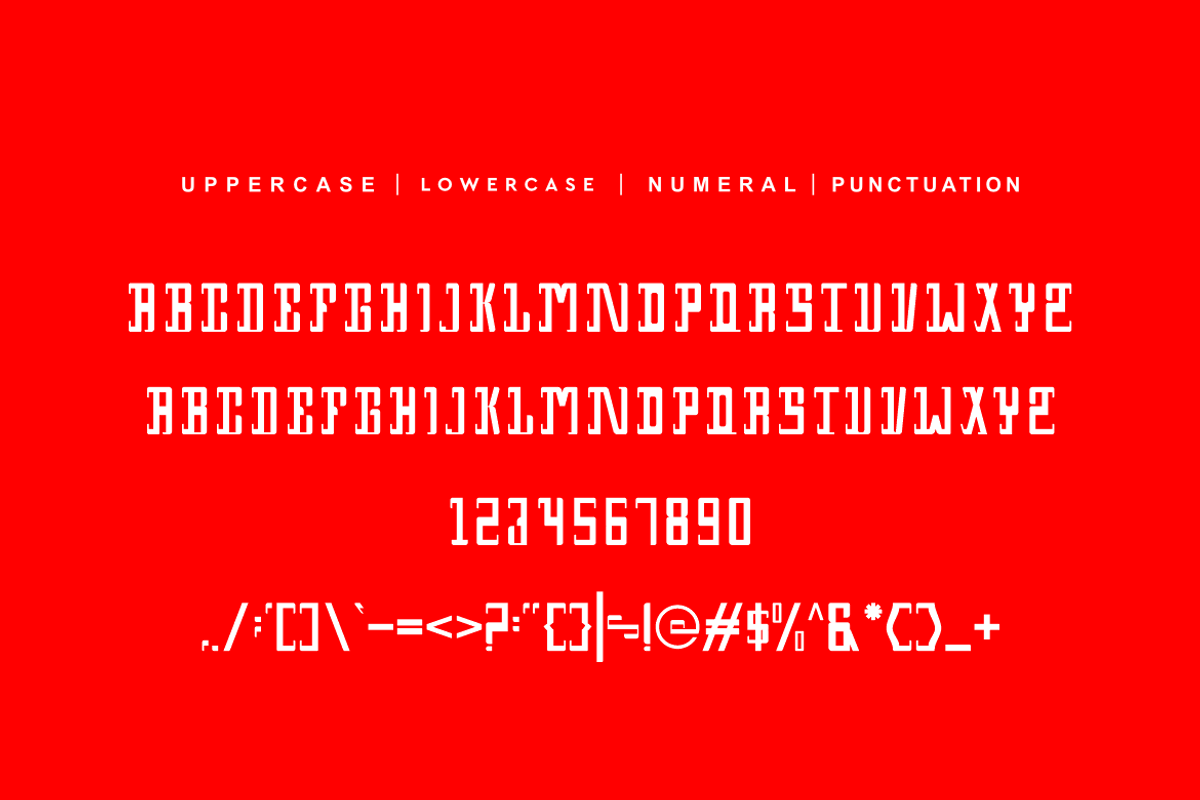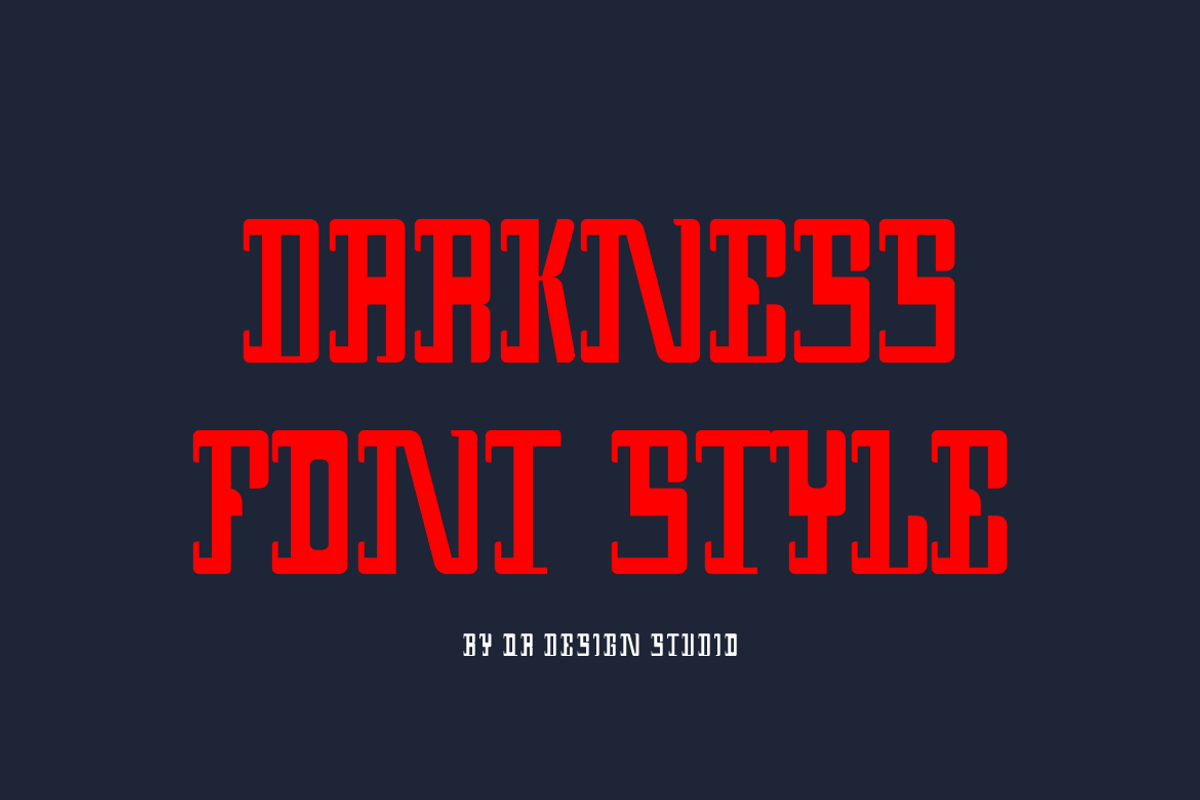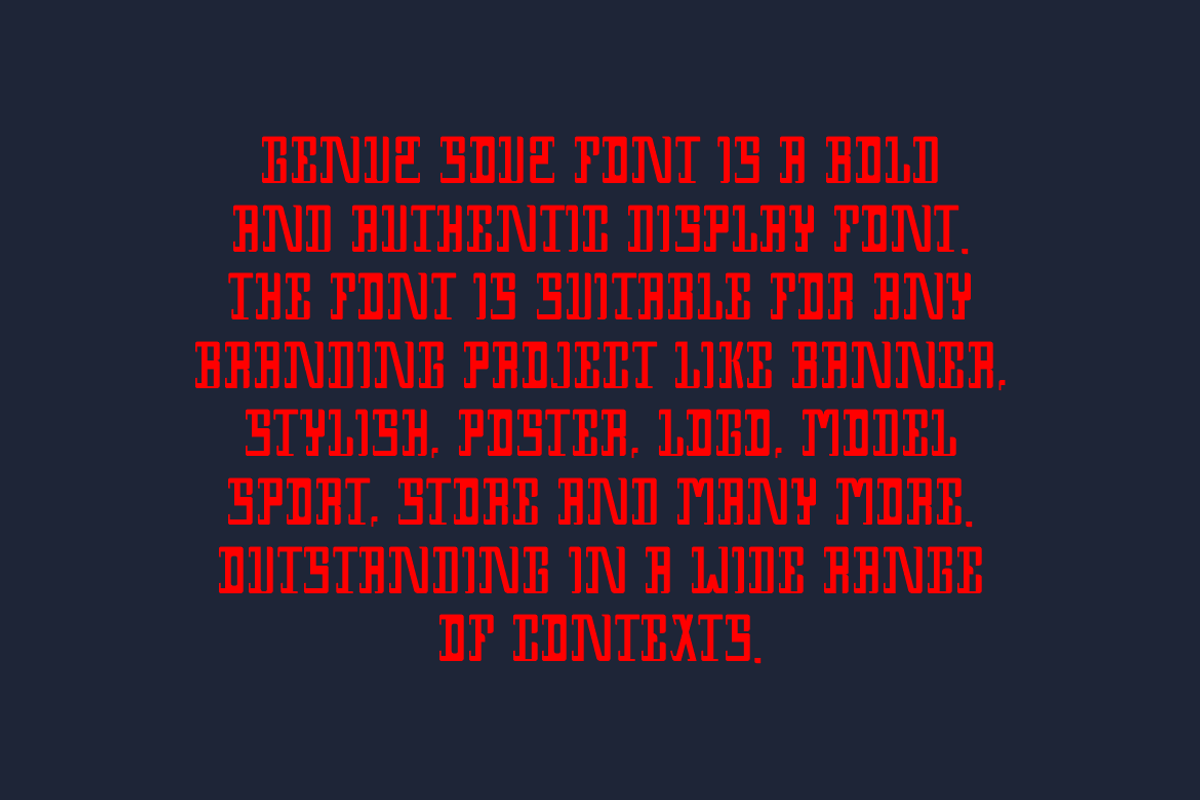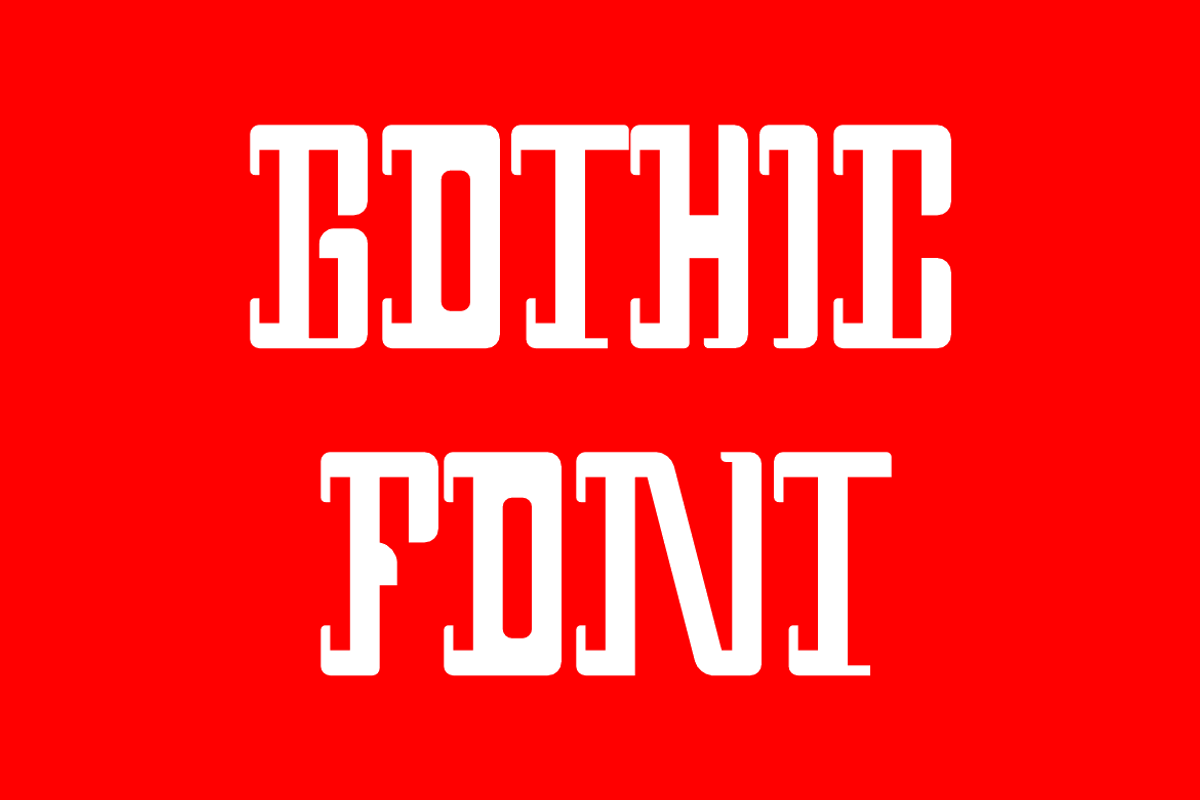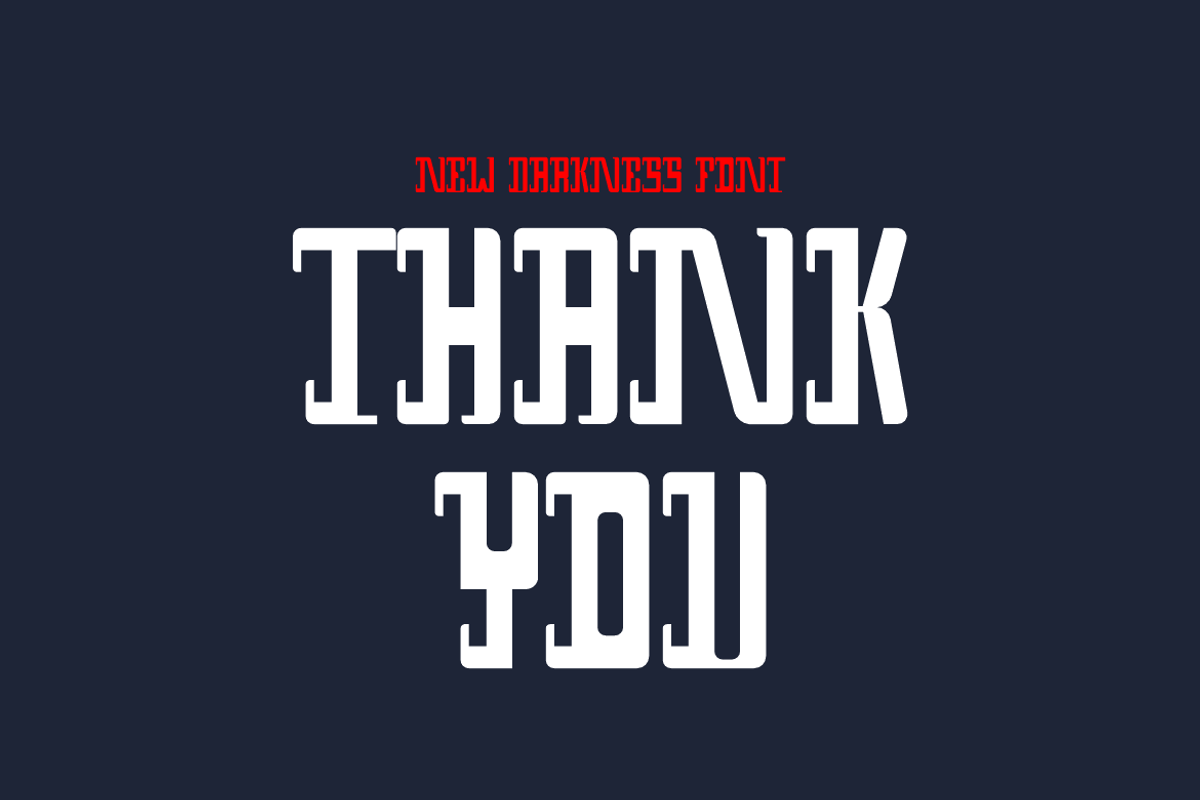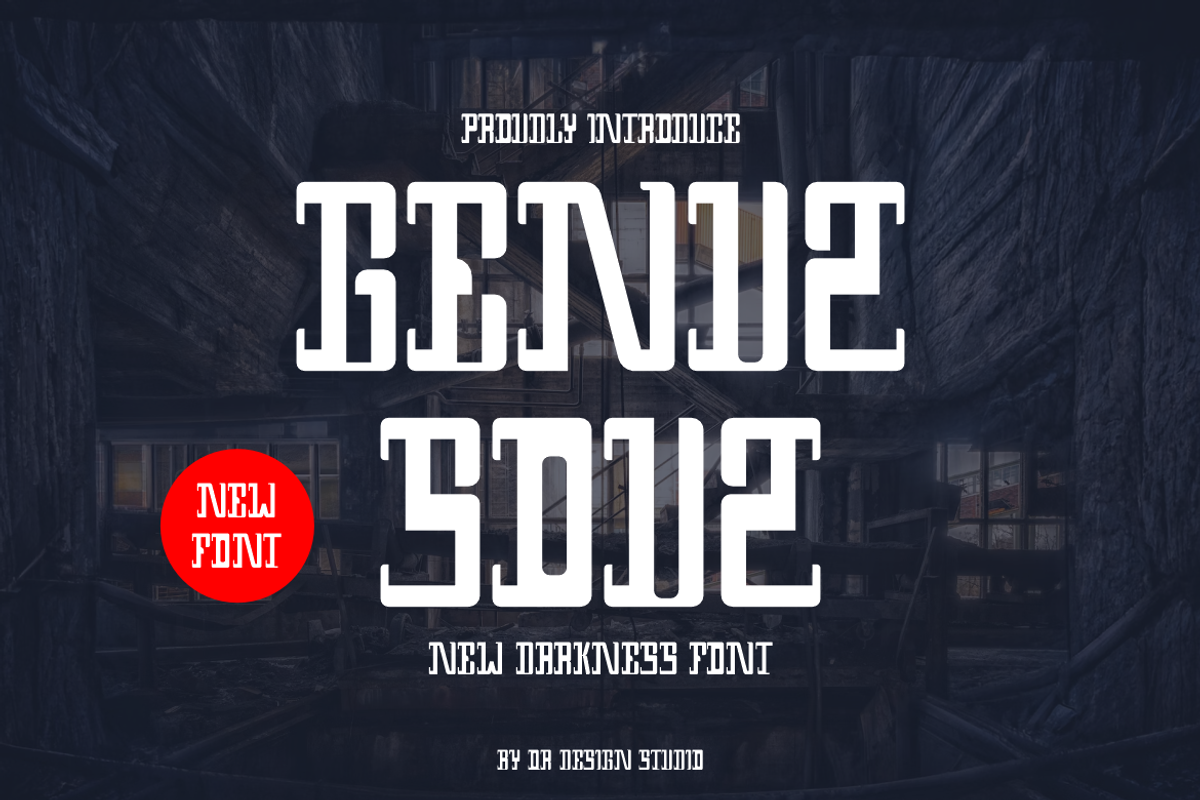
Genuz Souz Font
Genuz Souz Font is a bold and authentic display font. The font is suitable for any branding project like logo, sport, and many more. Outstanding in a wide range of contexts.